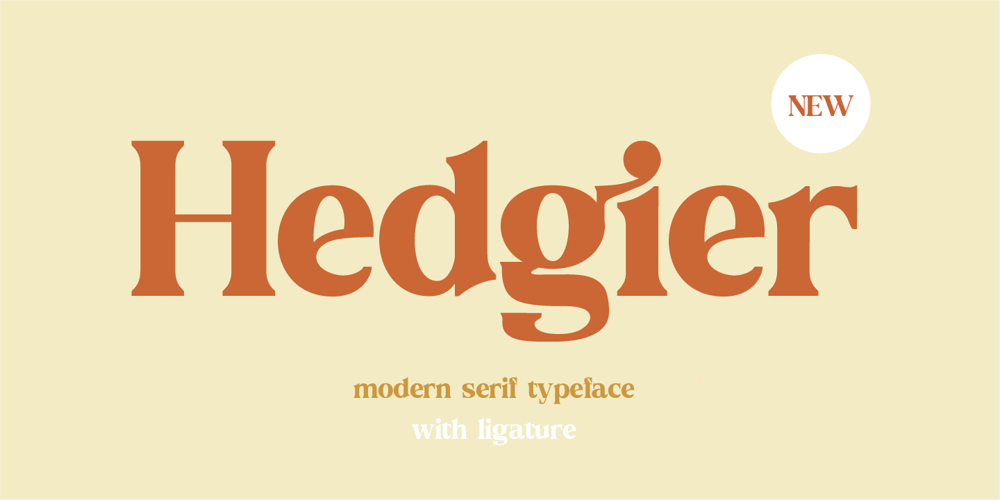
Hedgier
Hedgier font
Hedgier Font Family was designed by Farida Kurniawan and published by Fridaytype. Hedgier contains 1 styles and family package options. Hedgier – Modern Serif TypefaceHedgier is a modern bold serif typeface called weiss roman. The combination with the width of each letter forms a modern feel and is suitable for various magazines, logos, branding, photography, invitations, wedding invitations, quotes, blog headers, posters, advertisements, postcards, books, websites, etc.Files Includes: – Uppercase & Lowercase- Numerals & Punctuation- Multilingual- LigatureDrop any message if you any question, Thank you!Fridaytype